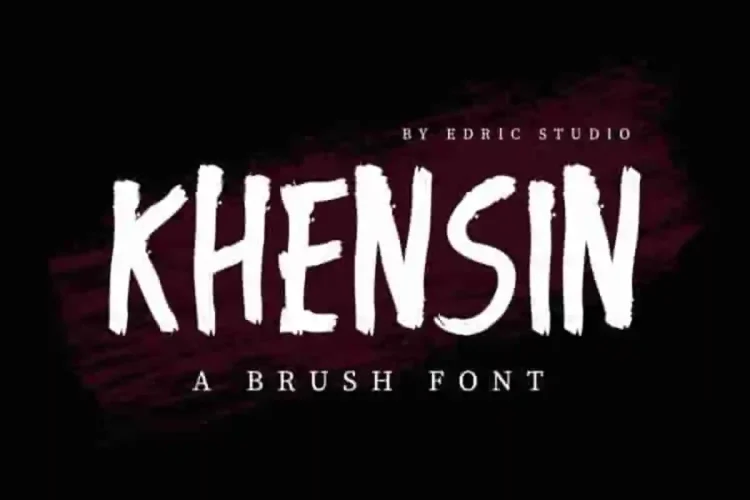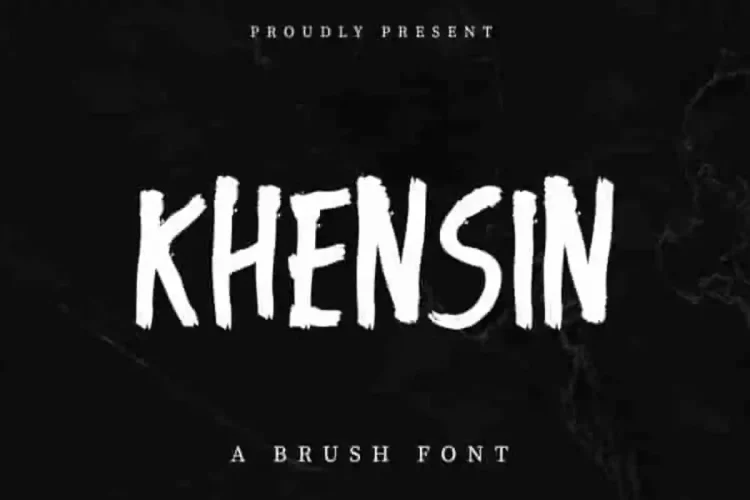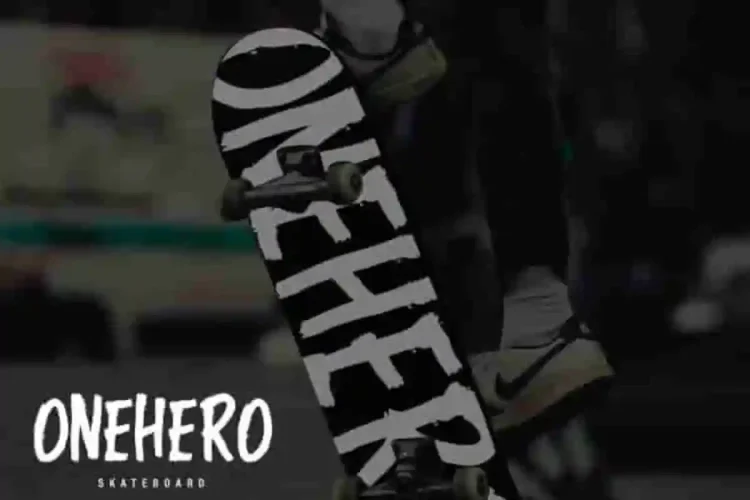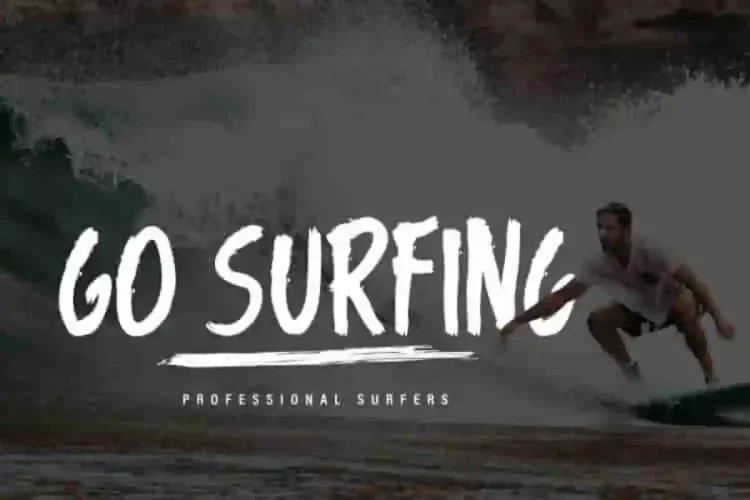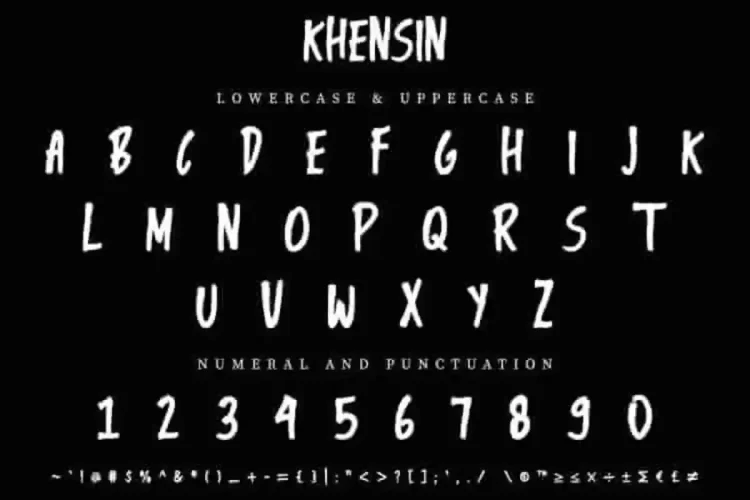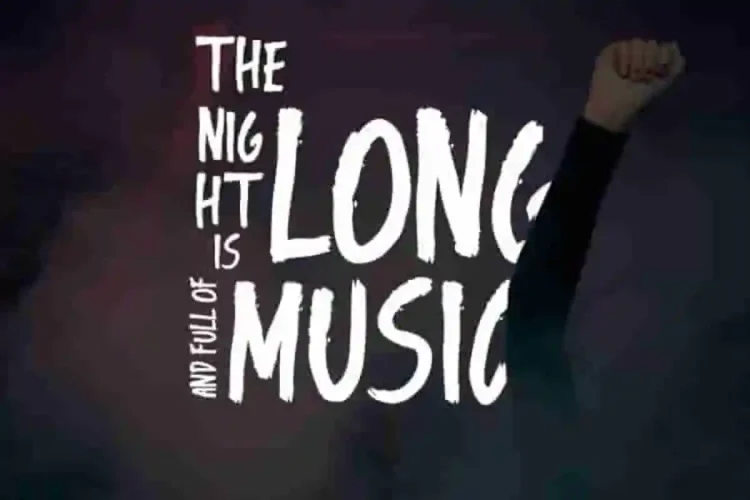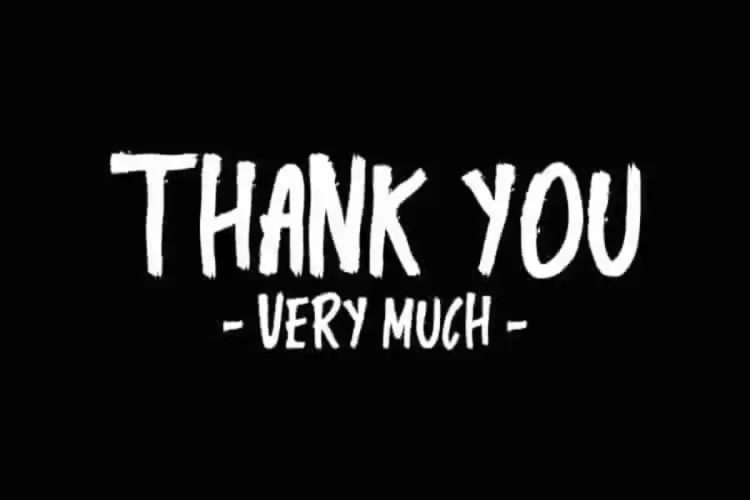
KHENSIN Display Brush Font
Introducing our newest font  : KHENSIN Display Brush Font
This is a Display brush display font, handcrafted from our Studio here in, Indonesia. The artists/designers of this tyeface is Ali and Suci.
KHENSIN Display Brush Font is an exclusive rough brush script typeface with unique brush style. This font has a stunning characters set, perfectly managed with well spaced and kerning.
KHENSIN Display Brush Font will be great for any projects including : branding, logo, stationery, business card, signage, flyer, brochure etc. Almost all industries will be match for this typeface: events, music video, makeup artist, travel, promotions, musician, magician etc.